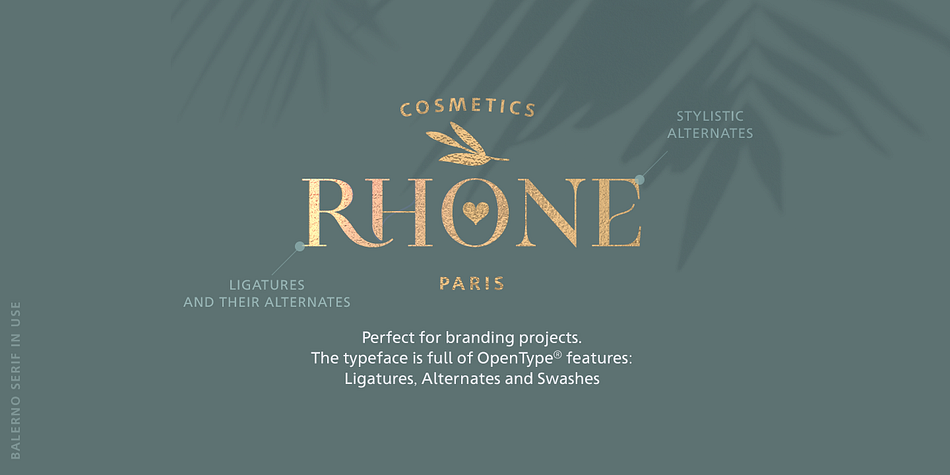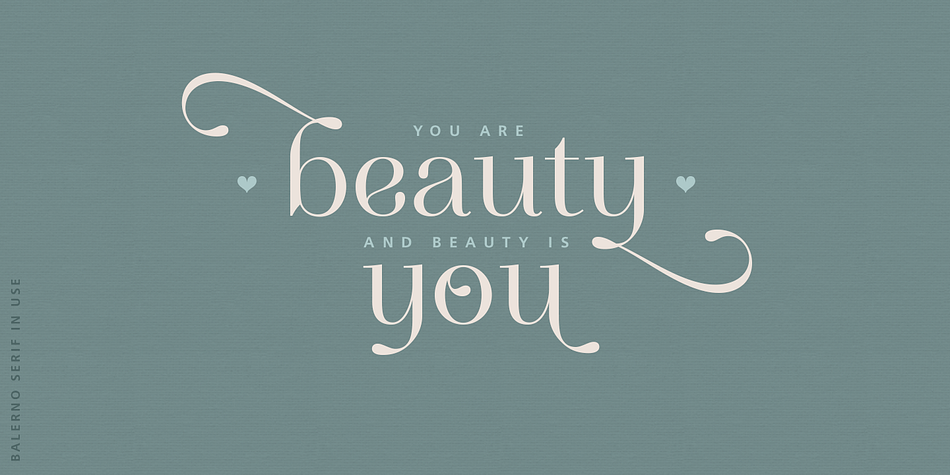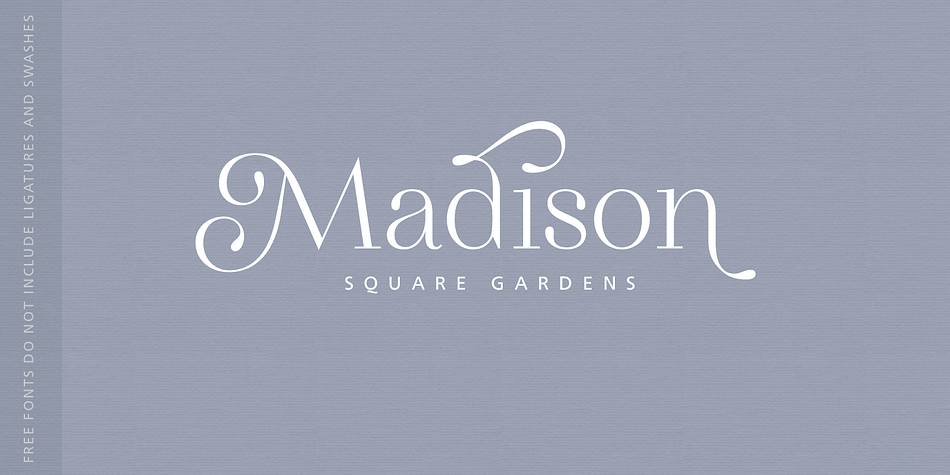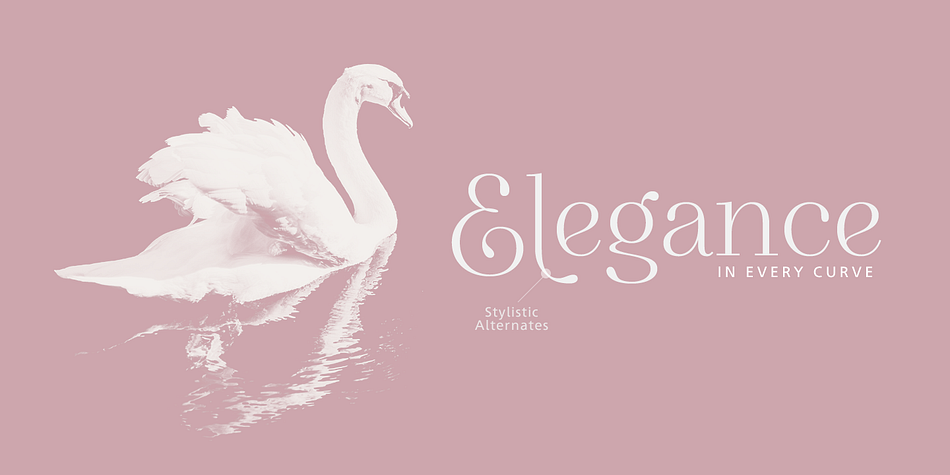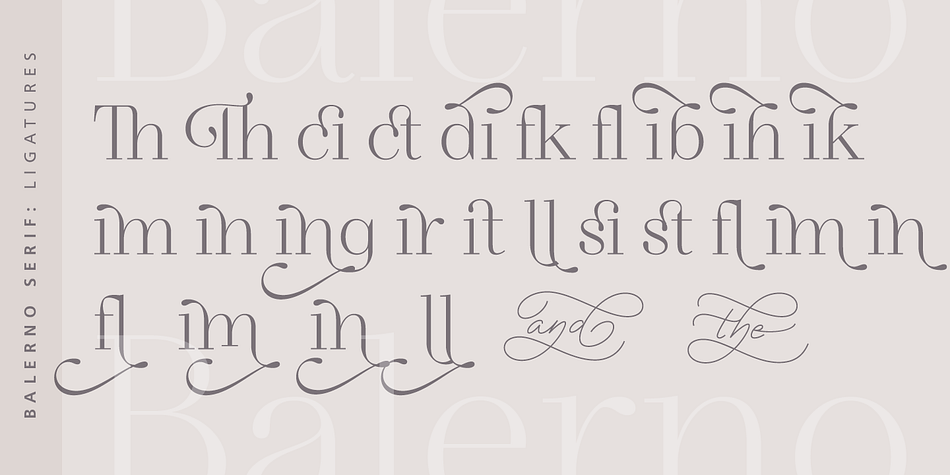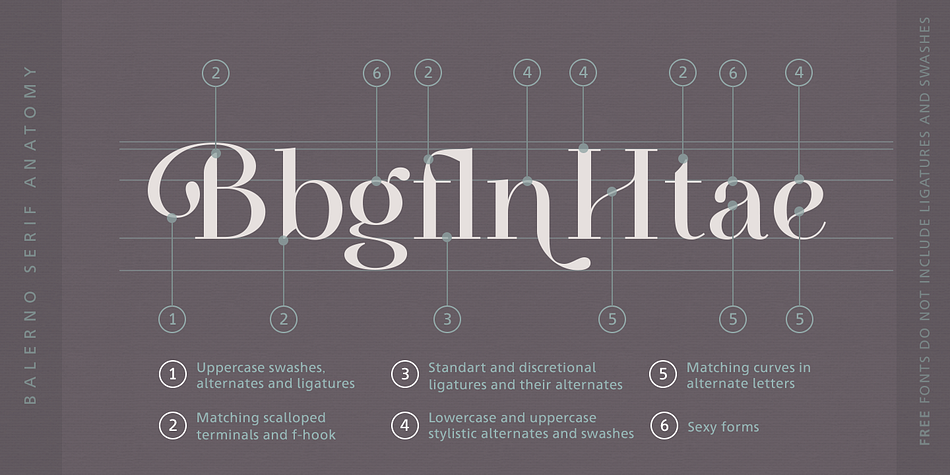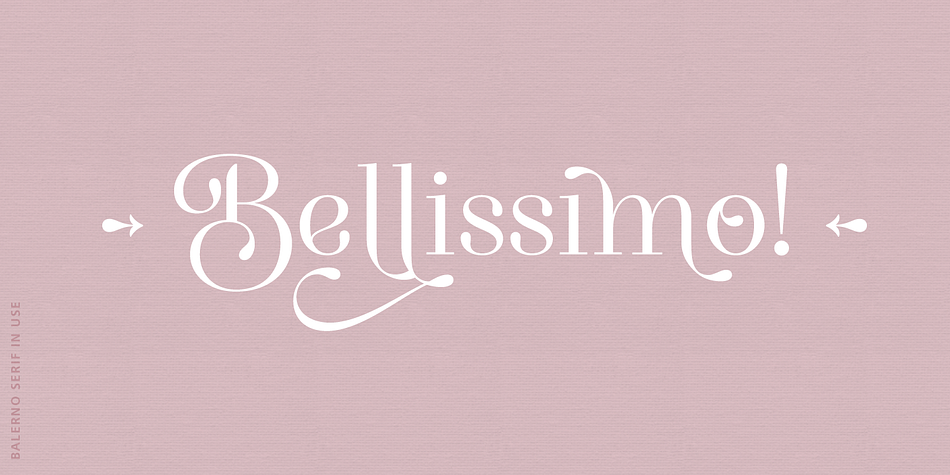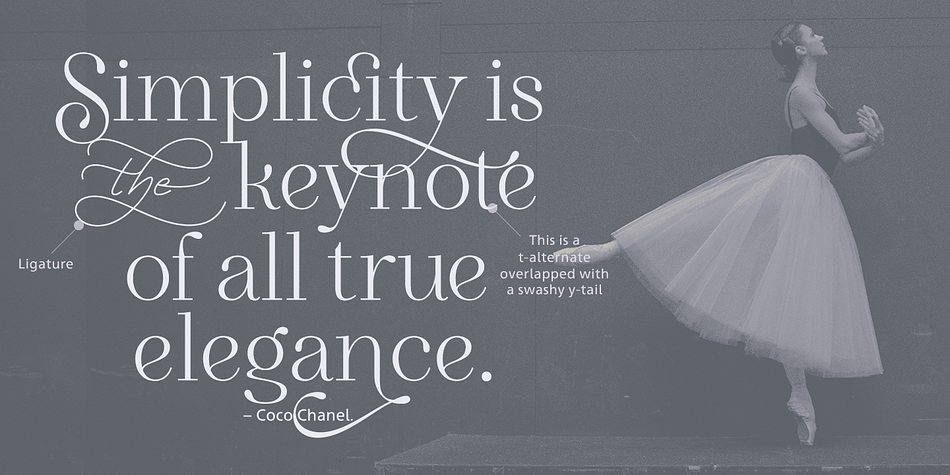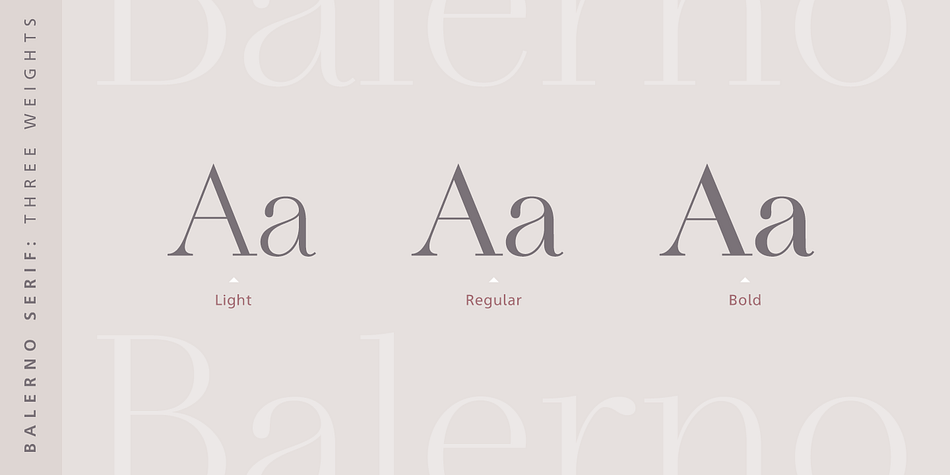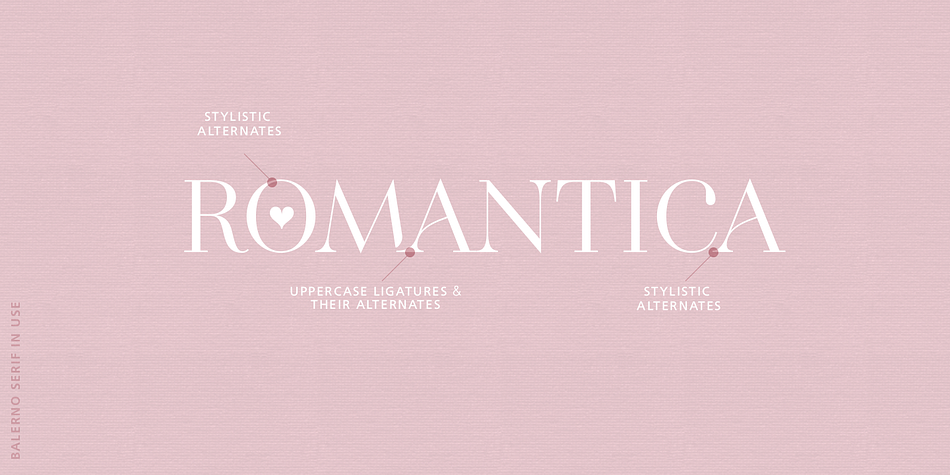
Designed by Elena Genova, Balerno is a serif font family. This typeface has six styles and was published by My Creative Land.
Balerno is a modern multilingual elegant Didone serif enhanced by ligatures, alternates and swashes.
Being a versatile font family it will cover a wide range of design projects starting from greeting cards to magazines, wedding invitations, websites etc.
The amount of alternates is tremendous, from simple stylistic alternates to swashes, ligatures and their alternates.